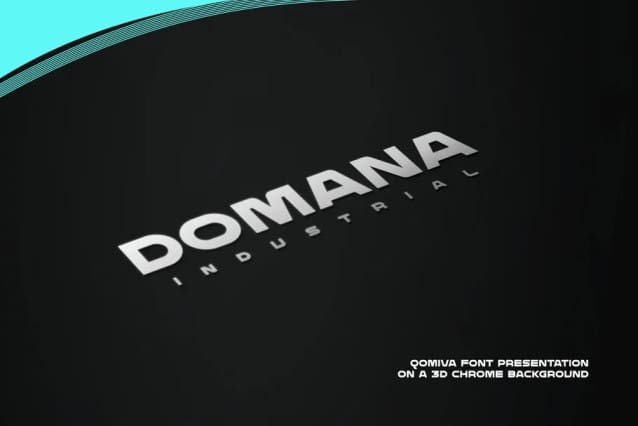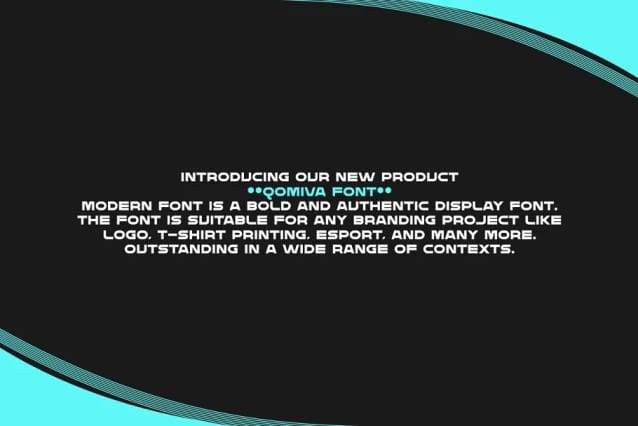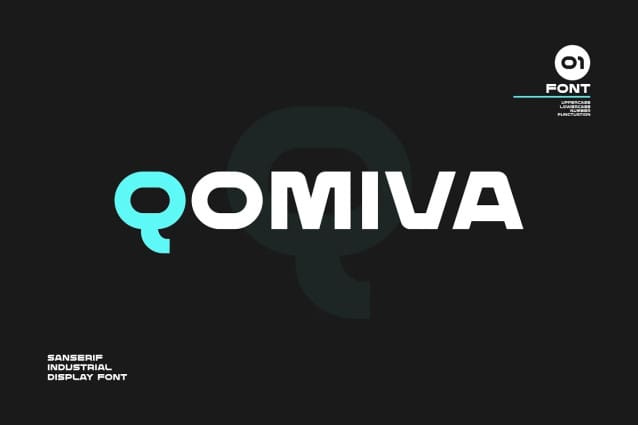
Qomiva Font
Qomiva Font – Modern Font is a bold and authentic display font. The font is suitable for any branding project like logo, esport, and many more. outstanding in a wide range of contexts.